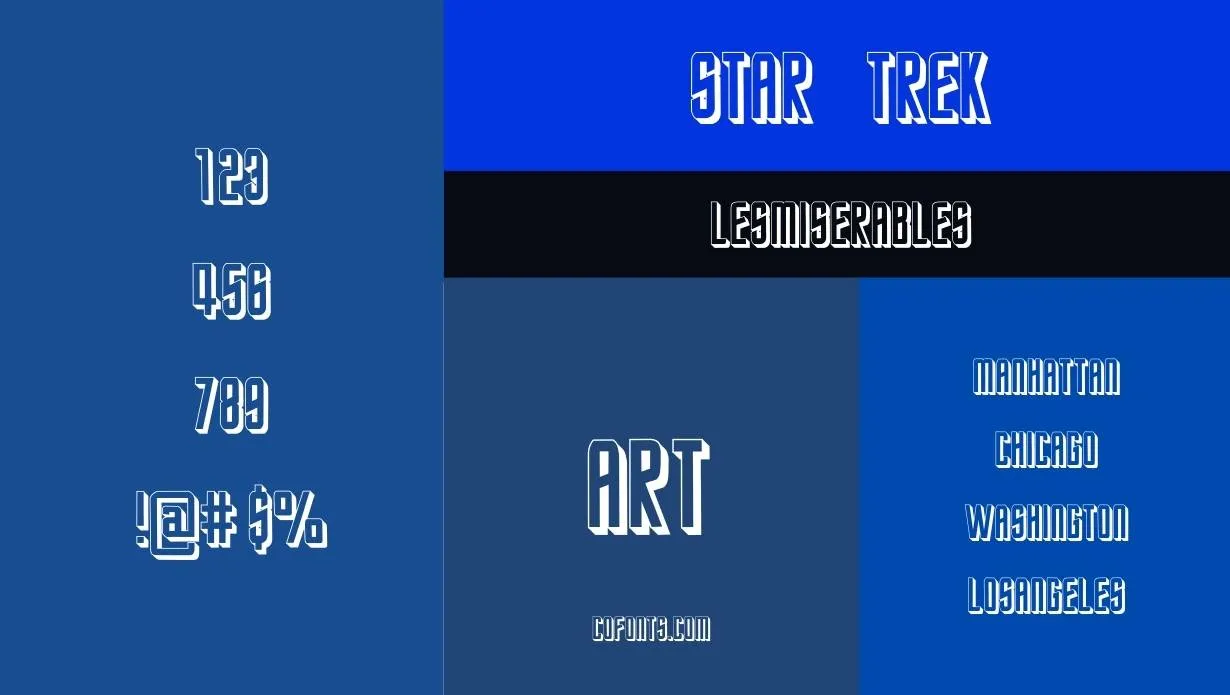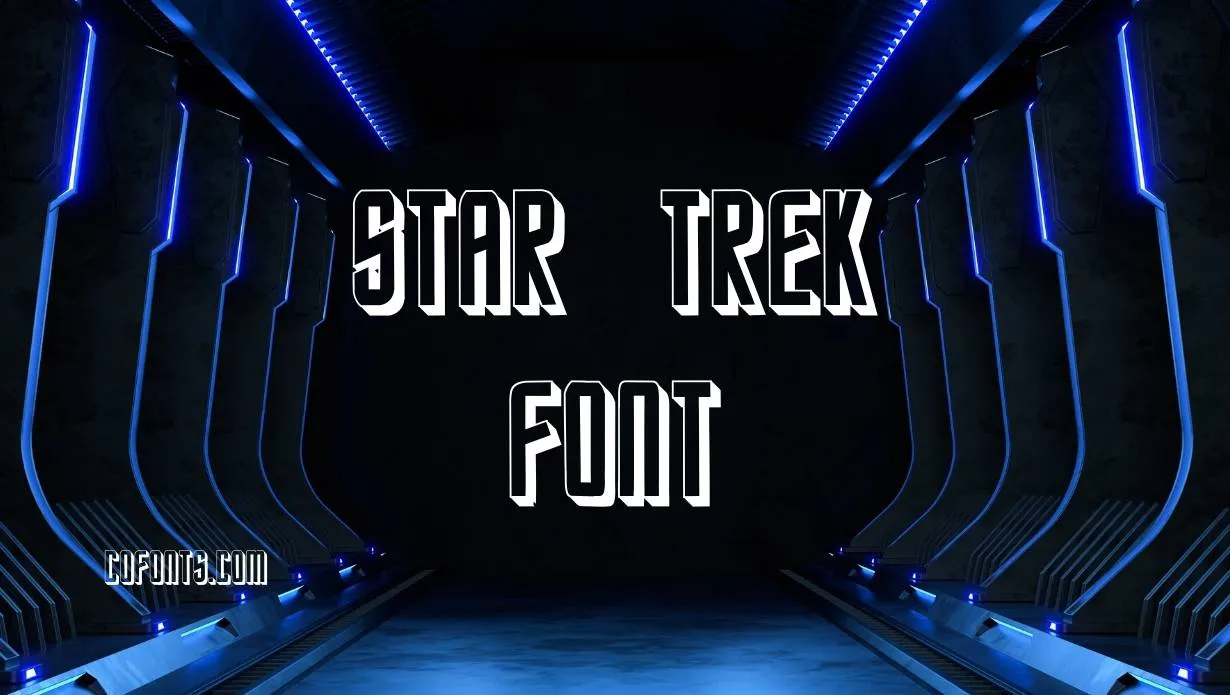
About Star Trek Font Free Download
Star Trek Font Free Download is a modern typeface available in multiple variants and styles.
- Star Trek Font Regular
- Star Trek Font Bold
- Star Trek Font Italic